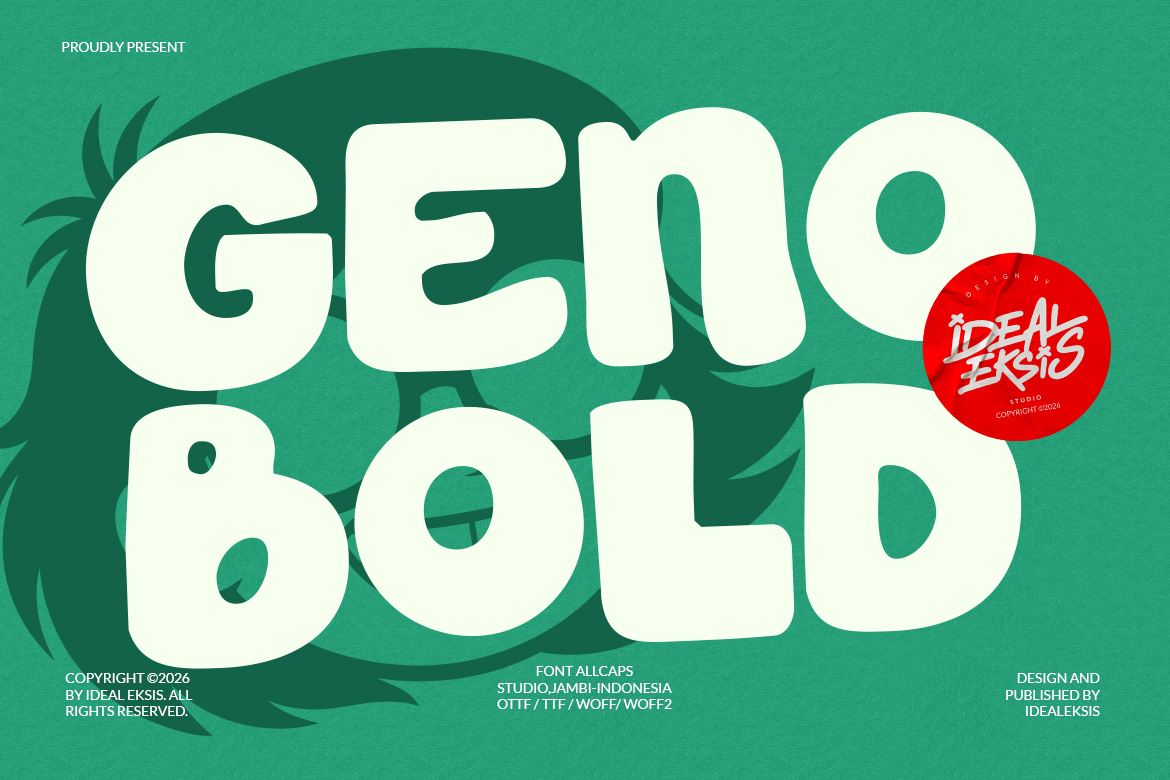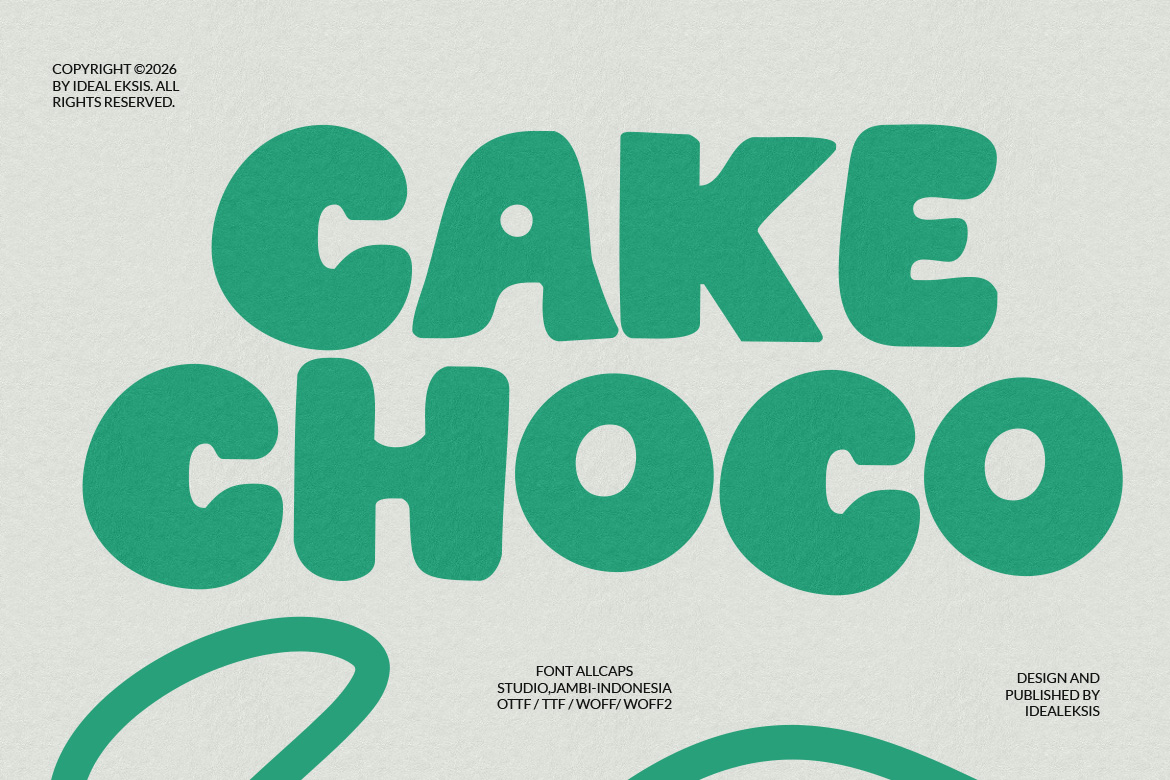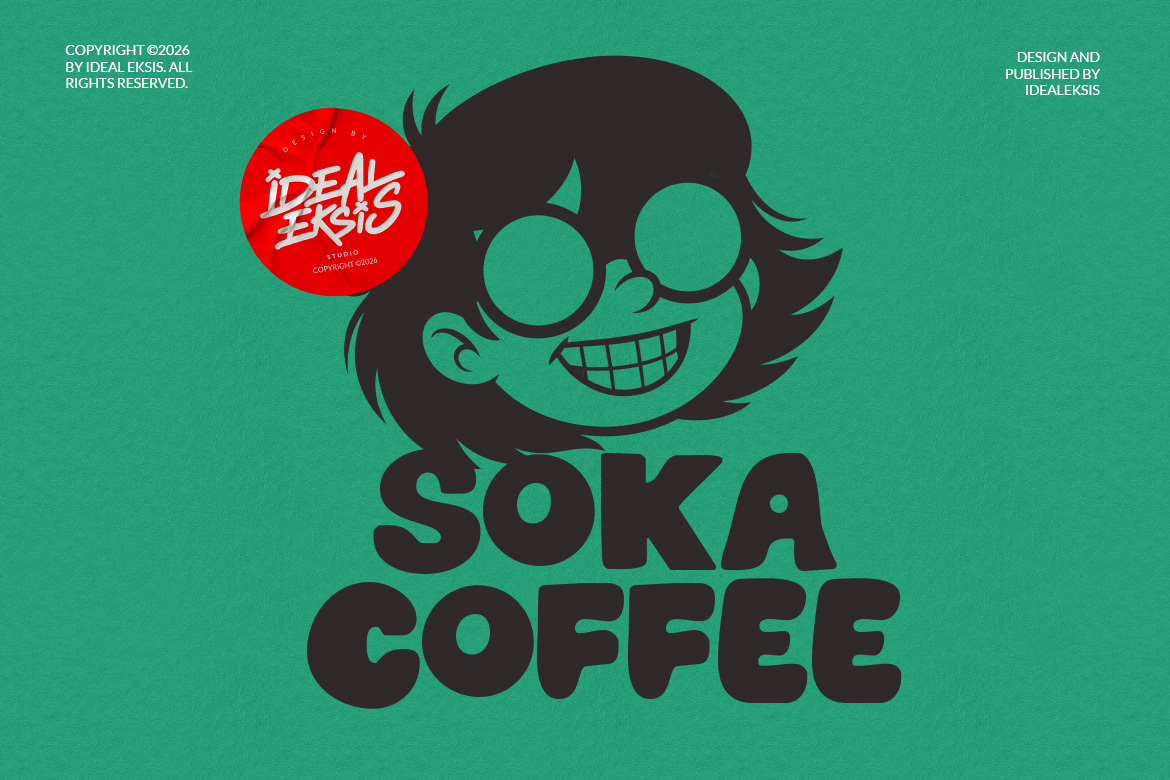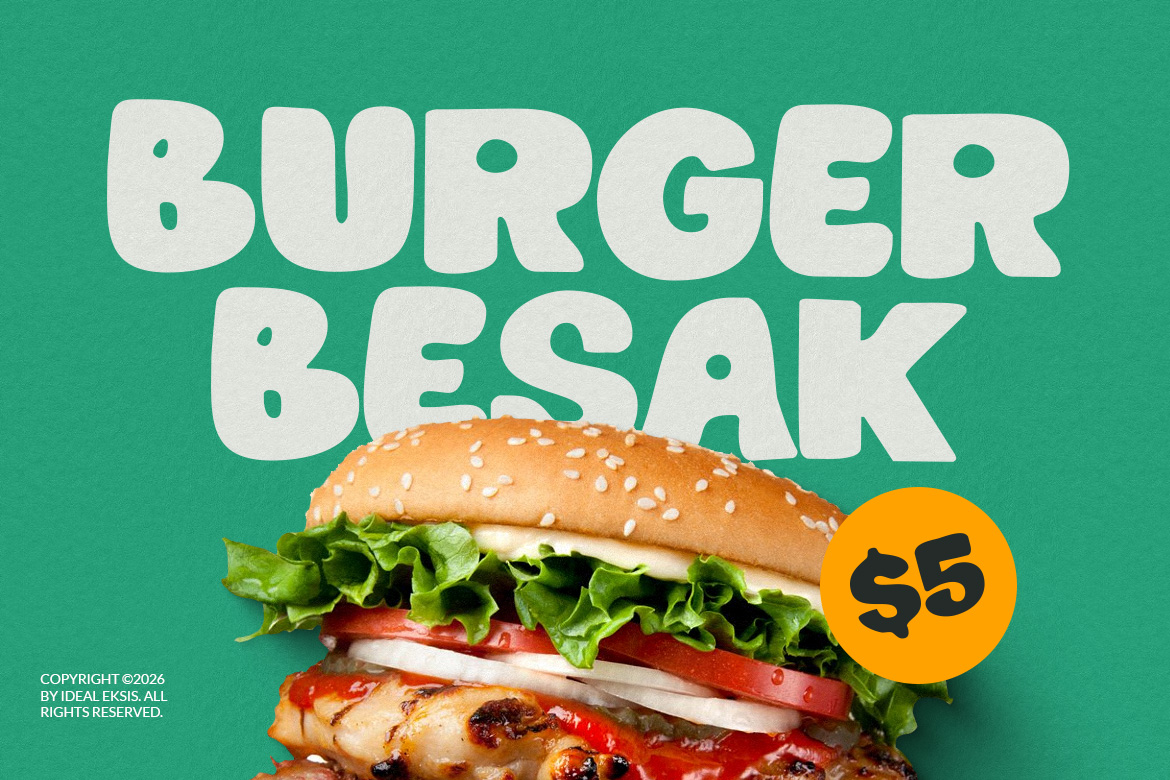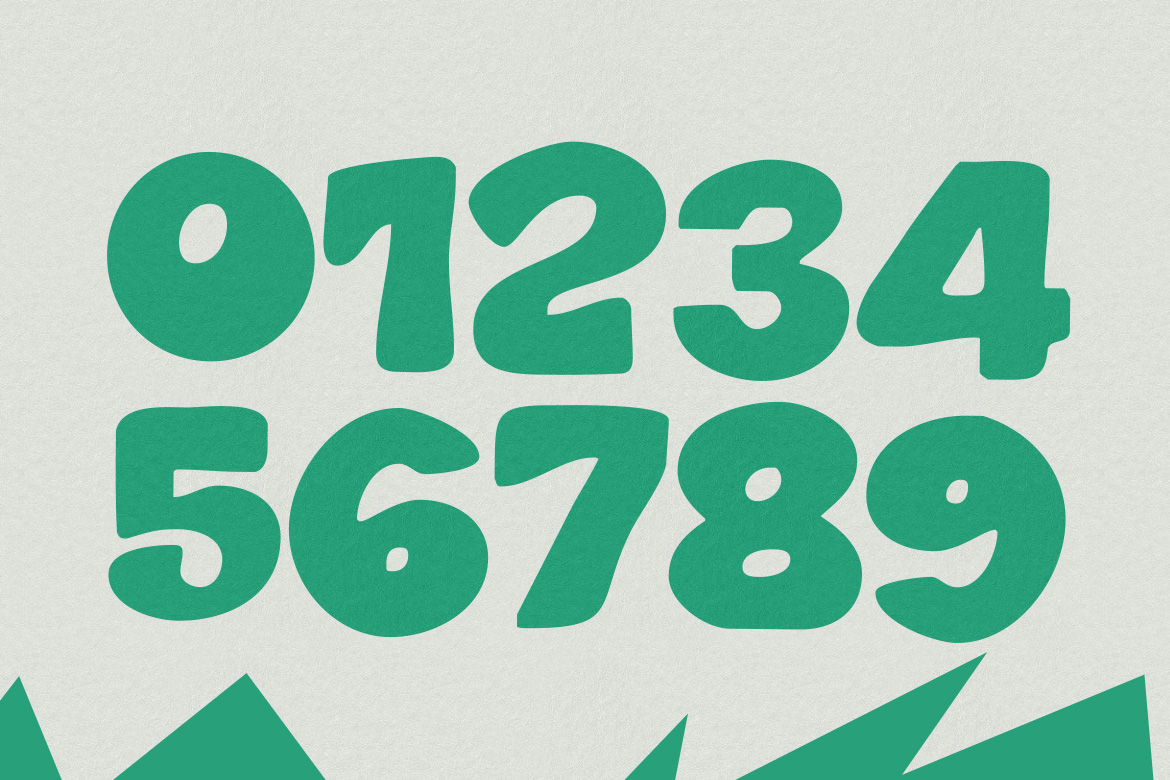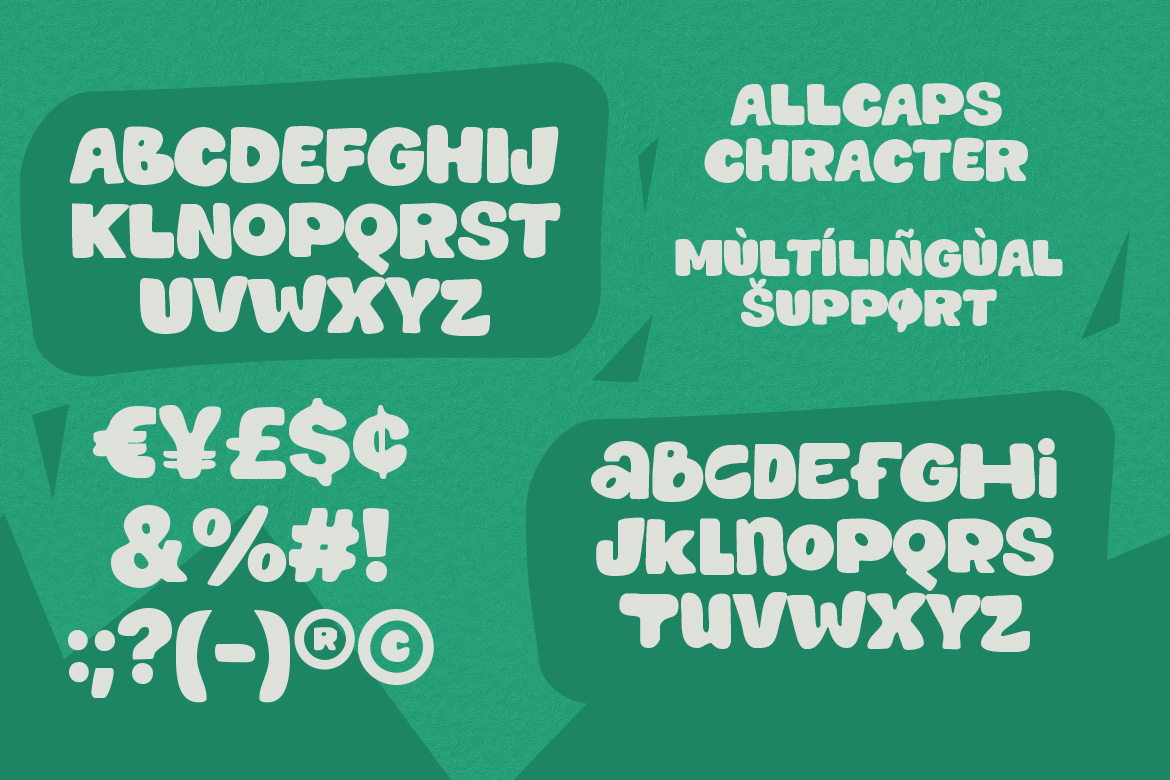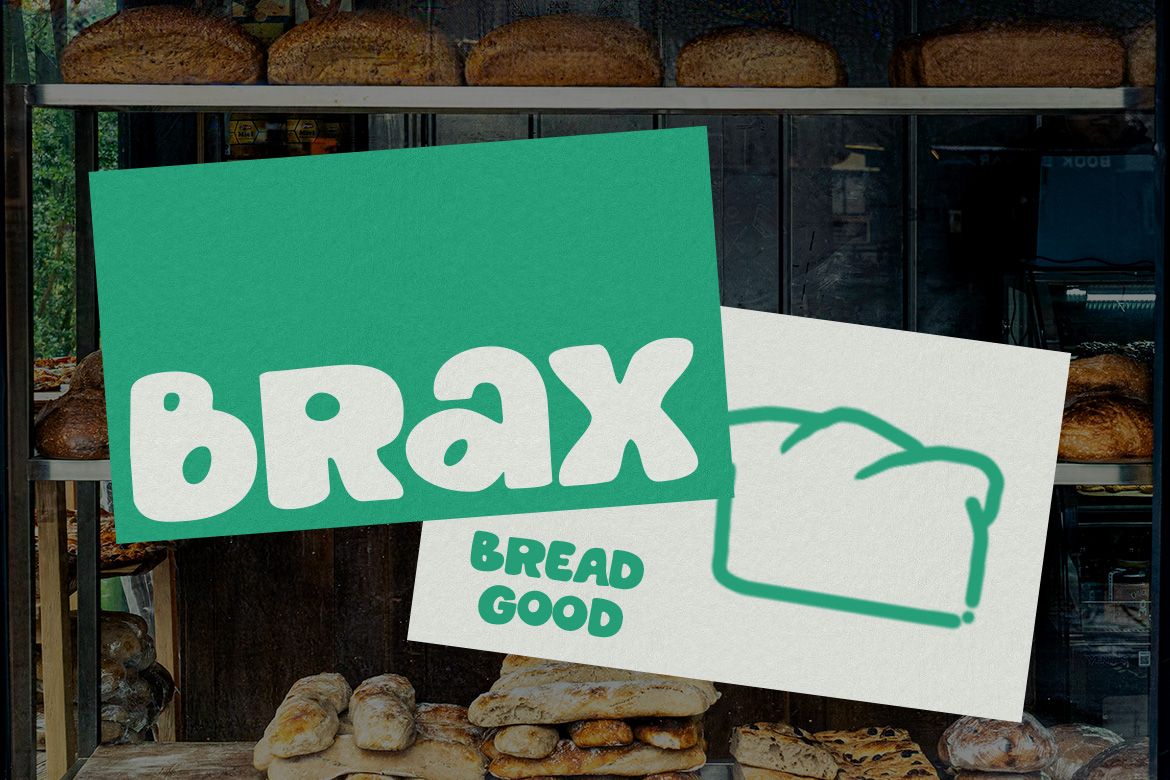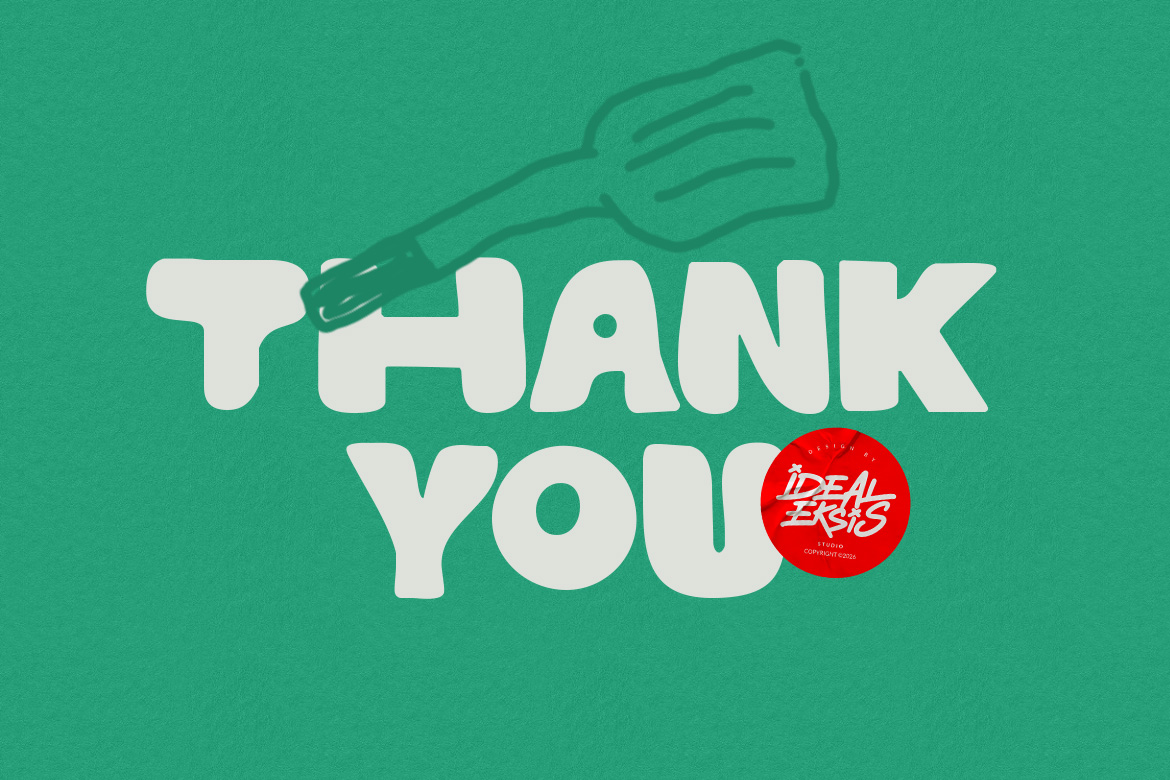
Geno Bold
Geno Bold is a heavy-weight display typeface characterized by its chunky, rounded letterforms and friendly, approachable personality. The font features ultra-thick strokes with almost no contrast, creating a solid and impactful visual presence. Each character is designed with soft, bulbous terminals that eliminate sharp edges, contributing to a soft and bubbly aesthetic. The tight counters and compact spacing make it ideal for high-impact headlines, logo design, and branding projects that require a sense of fun and energy. Its bold nature ensures excellent legibility in large formats, making it a perfect choice for posters, packaging, and digital media where a strong, cheerful statement is needed. In Package : OTF TTF WOFF WOFF2 Feature : Uppercase (All Caps) Numerals Punctuation Easy To Install